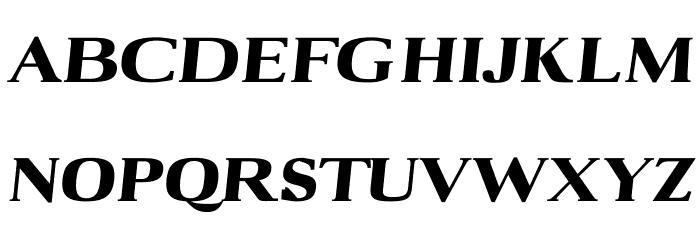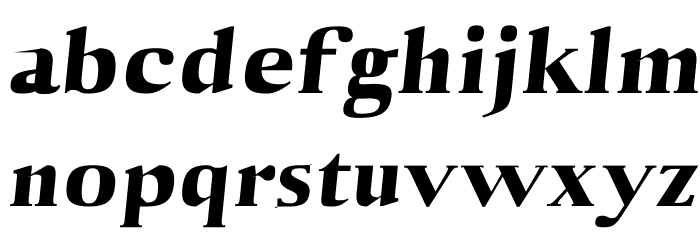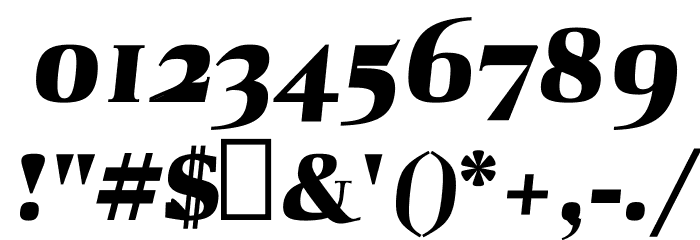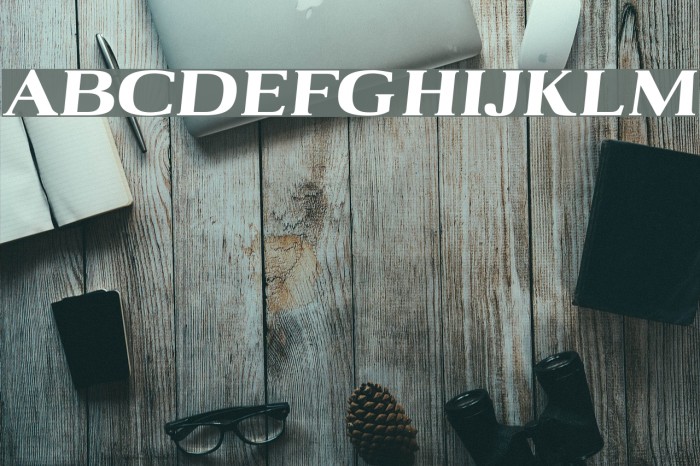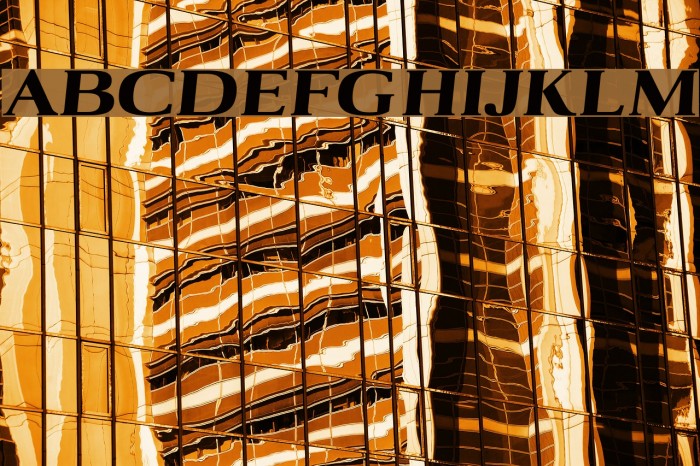
Aaron Black Font
This font features a bold and dynamic serif style with a slight italic slant, giving it a sense of movement and elegance. The uppercase letters are strong and commanding, while the lowercase letters maintain a consistent flow with slightly exaggerated curves. The numerals are robust and clear, making them suitable for both display and text settings. Special characters are well-integrated, maintaining the font's overall aesthetic. The strokes vary in thickness, adding a touch of sophistication and enhancing readability. This font is versatile, suitable for a range of applications from headlines to branding.
A bold, italic serif font with dynamic strokes and elegant curves.
- Proposed Projects: Ideal for branding, editorial design, book covers, and luxury product packaging.